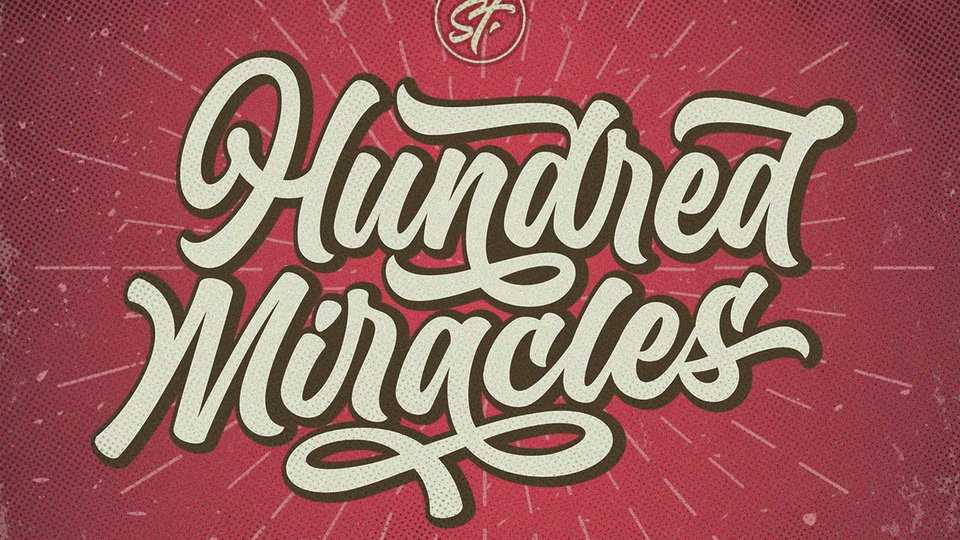
Download Hundred Miracles font, a dynamic and energetic urban typeface inspired by a retro lettering style. Hundred Miracles was created for designing logotype or lettering composition for your brand.